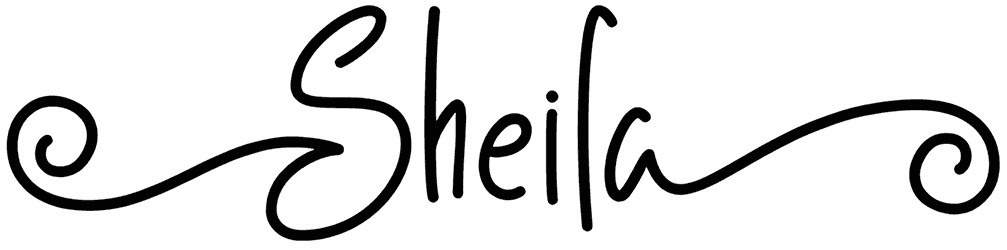
Sheila Font
Not just any handwritten font like other ones in the same category, but further than them with top quality. Everyone can sense friendly, pure, and integrity vibes from each letter as soon as they meet them. Sheila font with particular fun effects can be achieved and put into your works to make them cute and kid-friendly.
To further benefit from its joyful nature, use this script font and simply transform any tedium text without any trouble to a sparkling layer.